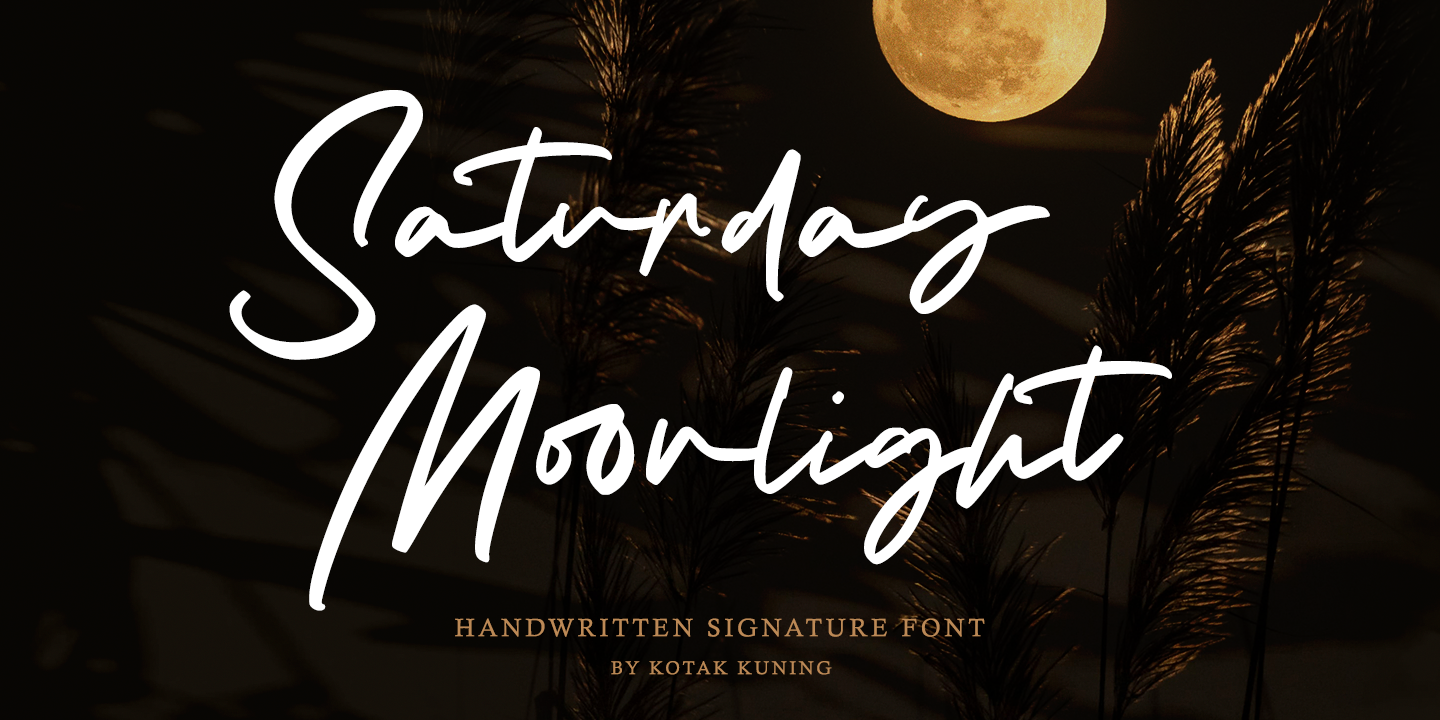
Saturday Moonlight Font is perfect for romantic evening event invitations, nighttime wedding ceremonies, moonlit restaurant branding, late-night cafe signage, evening entertainment promotions, nocturnal lifestyle campaigns, midnight party graphics, stargazing event materials, dreamy bedtime story books, and enchanting night market communications. Its nocturnal character makes it ideal for projects requiring mystical evening charm and romantic moonlit appeal.
What makes Saturday Moonlight Font exciting is its enchanting ability to capture the magical serenity of moonlit Saturday nights through elegant letterforms that embody the peaceful romance and mystical beauty of evening hours. The font features flowing curves with luminous qualities that seem to glow softly like moonbeams while maintaining excellent nighttime readability. Its moonlit character transforms ordinary text into poetic expressions of evening tranquility that evoke the special magic of Saturday night adventures under starlit skies.
The Saturday Moonlight Font family includes Regular, Bold, Light, Dreamy, Luminous, Starlit, and Romantic variations. Each style preserves the font's nocturnal essence while offering different levels of moonlit intensity and evening weight for creating authentic nighttime graphics. The comprehensive character set includes celestial symbols, moonlight ornaments, evening decorations, and romantic glyphs essential for genuine nocturnal and romantic typography projects.
Evening entertainment venues and romantic brands consistently choose Saturday Moonlight Font Free Download for projects demanding authentic moonlit typography solutions. The font's nocturnal character instantly establishes evening credibility while ensuring clear communication across nighttime marketing channels. Its versatility spans from subtle moonlight touches to bold statements that celebrate the magical transformation that occurs when Saturday evening surrenders to the mystical beauty of moonlit nights.
Whether you're developing evening brand identities, creating romantic marketing materials, or designing nocturnal event communications, Saturday Moonlight Font provides the perfect combination of moonlit authenticity and contemporary functionality. The font's luminously crafted letterforms ensure genuine evening character while maintaining excellent performance across various nighttime applications and romantic business communications.
The romantic heritage of Saturday Moonlight Font makes it exceptional for creating enchanting connections with audiences who cherish evening magic and moonlit romance. Its nocturnal precision and luminous appeal work seamlessly across traditional romantic materials and modern digital evening platforms. The font performs beautifully in both large-scale nighttime displays and intimate moonlit communications.
Embrace evening magic with Saturday Moonlight Font and discover how authentic moonlit typography can enhance your romantic projects with genuine nocturnal appeal and mystical sophistication. This remarkable typeface combines evening romance with contemporary functionality, making it indispensable for creators celebrating the eternal magic of Saturday nights and the enchanting beauty of moonlit moments.